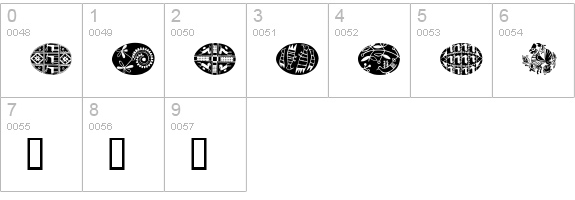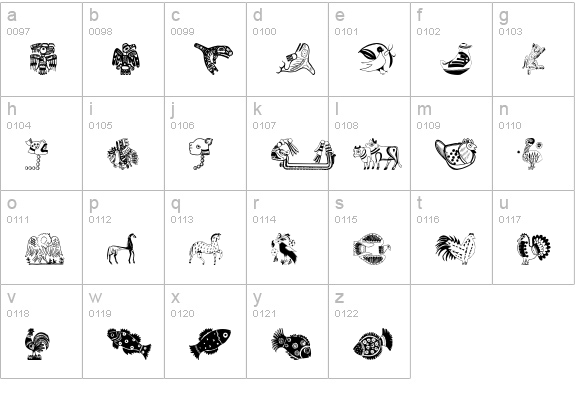
Introducing the captivating Animal Design font, a whimsical and playful typeface that is sure to bring a touch of fun and charm to any design project. With its unique animal-inspired motifs and quirky details, this font is perfect for adding a touch of personality to your creations. From cute critters to fierce predators, Animal Design font offers a wide range of characters that will make your text stand out. What's even better is that Animal Design font is available for free download at FontsMarket.com! Yes, you read that right - you can get your hands on this delightful font at no cost at all. So why wait? Add a splash of creativity to your designs with Animal Design font today!